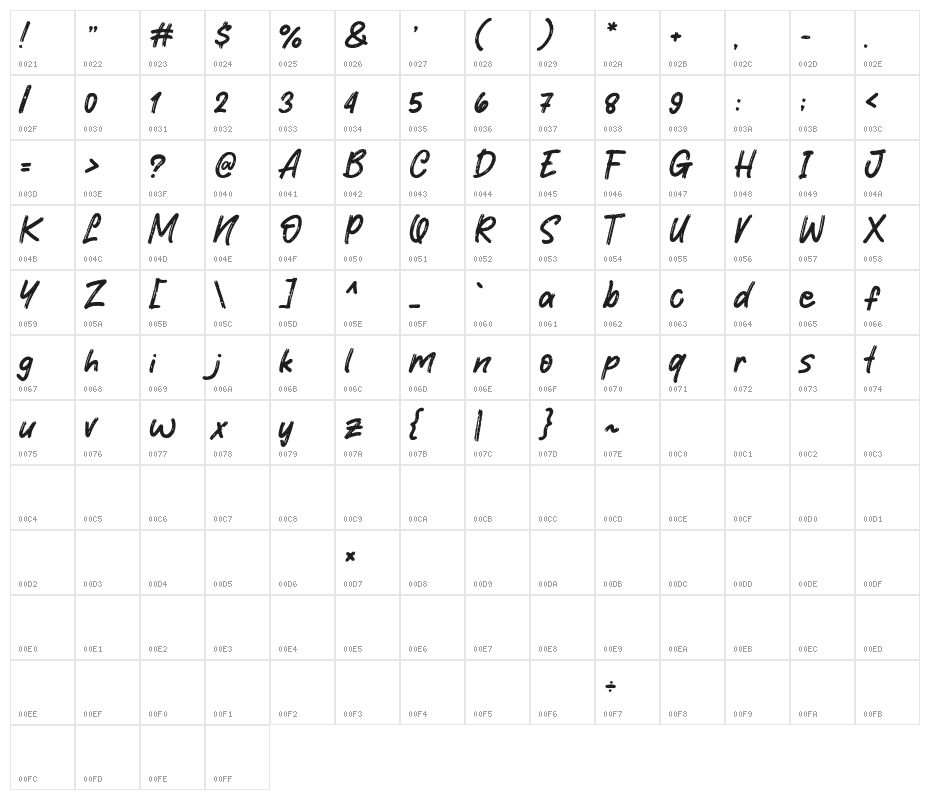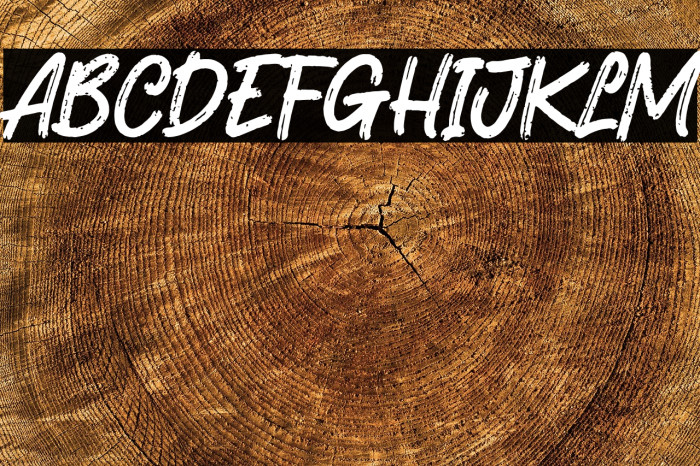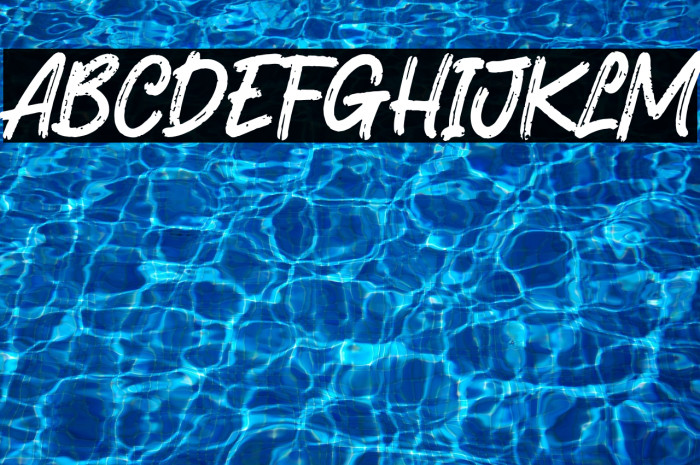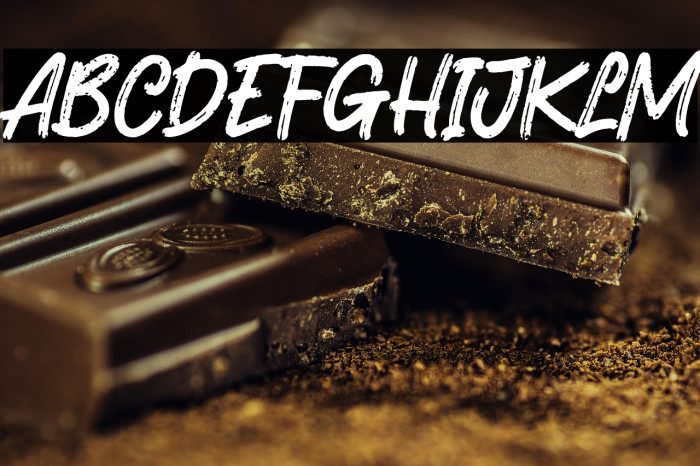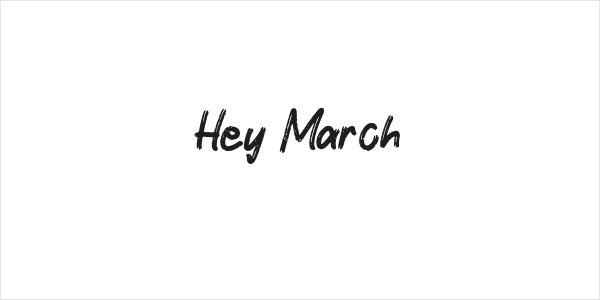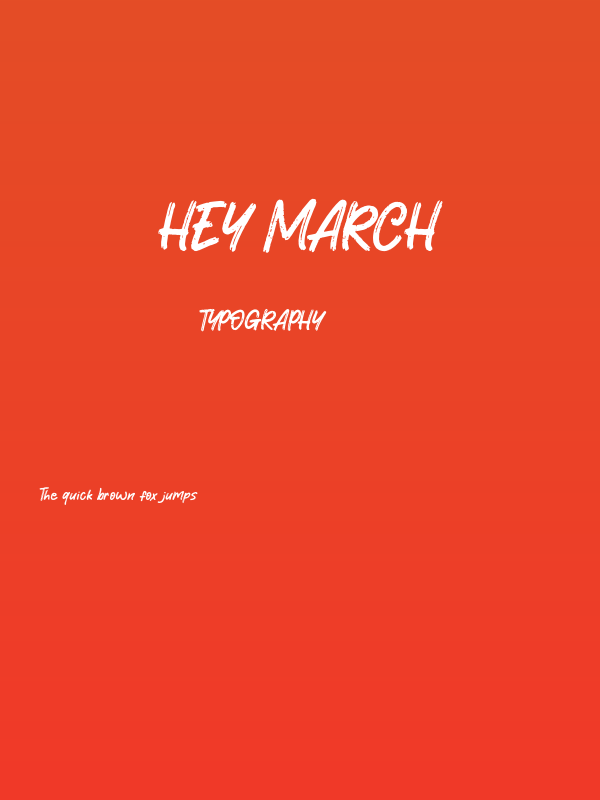
Hey March Font
Hey March Description
This font features a bold, expressive style with a hand-painted appearance, characterized by its brush-like strokes and dynamic flow. The letters are slightly slanted, giving a sense of movement and energy. The uppercase and lowercase letters maintain a consistent style, with a rough texture that adds a raw, artistic feel. The numbers and special characters follow the same aesthetic, ensuring a cohesive look across all elements. This font's unique style makes it stand out, perfect for projects that require a personal touch or artistic flair.
| Proposed Projects | Ideal for artistic posters, creative branding, event invitations, and any project needing a dynamic, personal touch. |